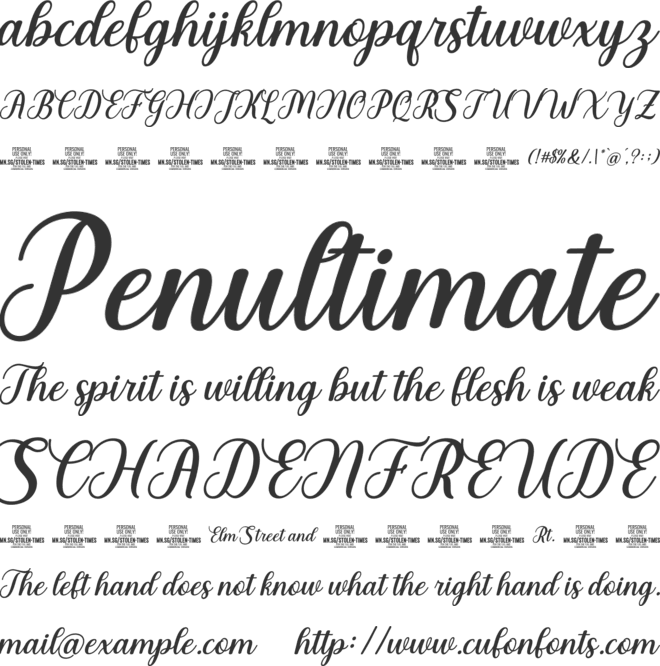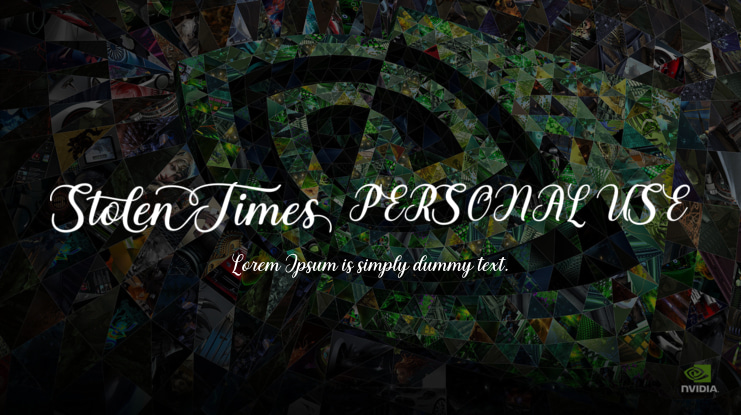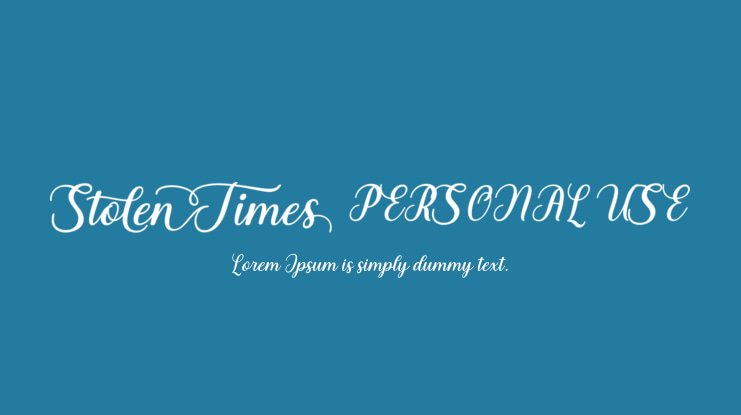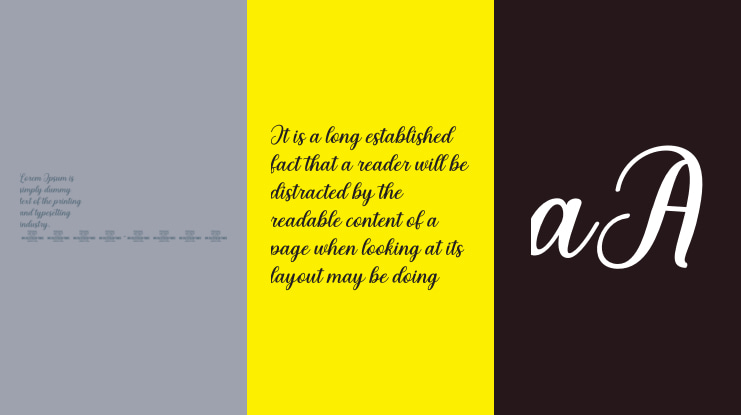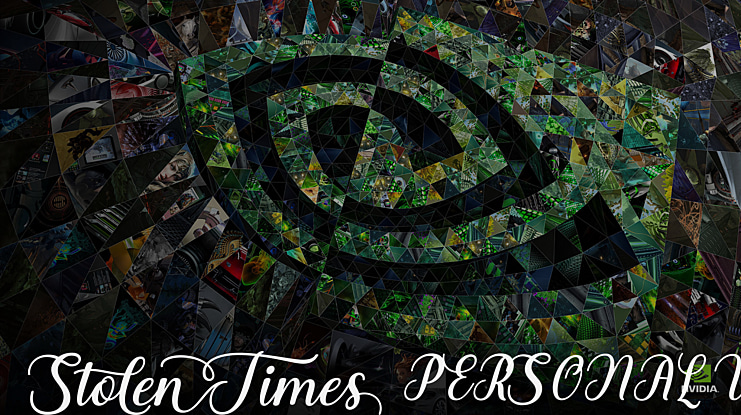
Stolen Times PERSONAL USE Font
Stolen Times is a cute and quirky handwriting font that exudes a light-hearted and naive charm.
With its hand-crafted appearance and calligraphic touch, this font brings a sense of warmth and personal connection to your design projects.